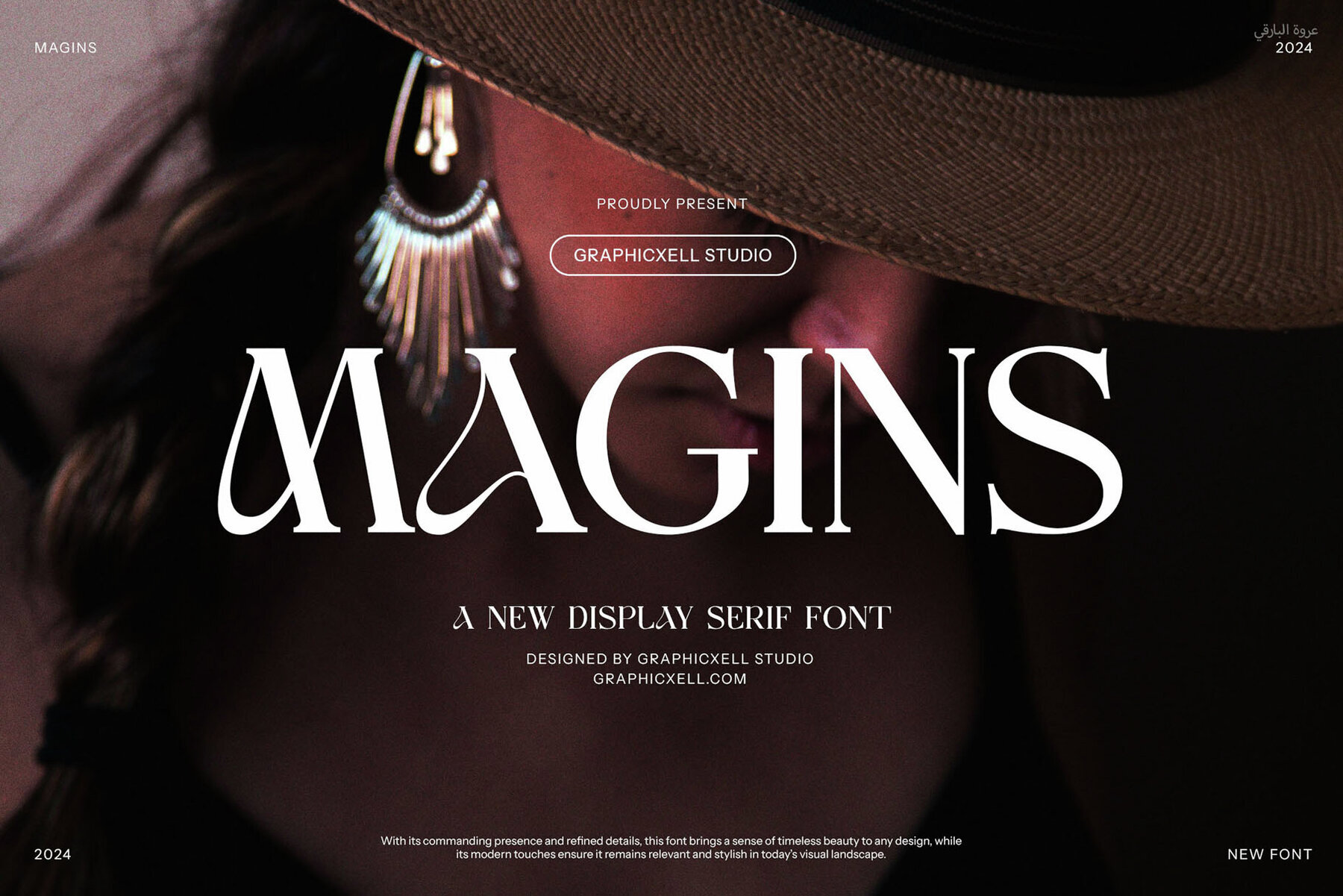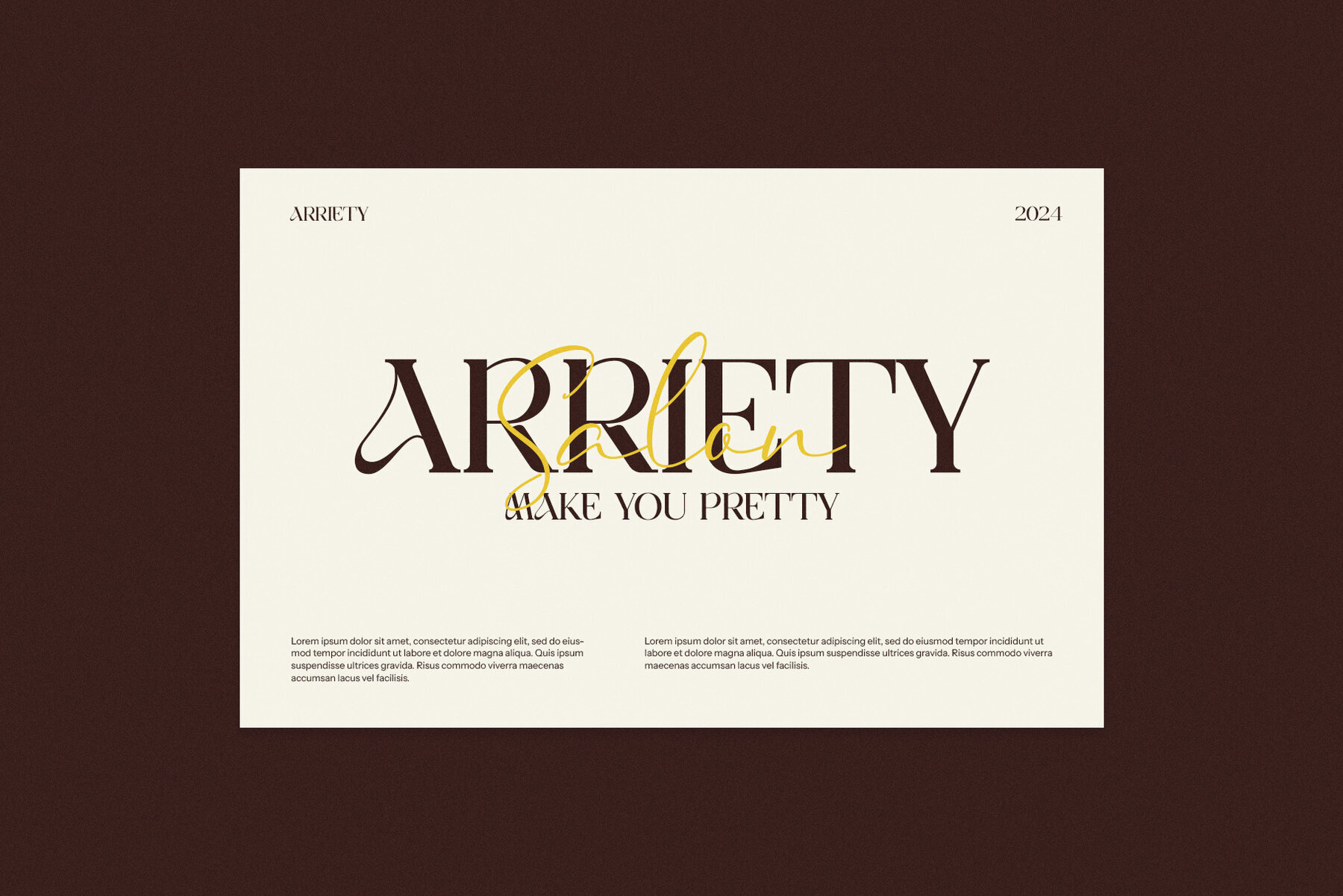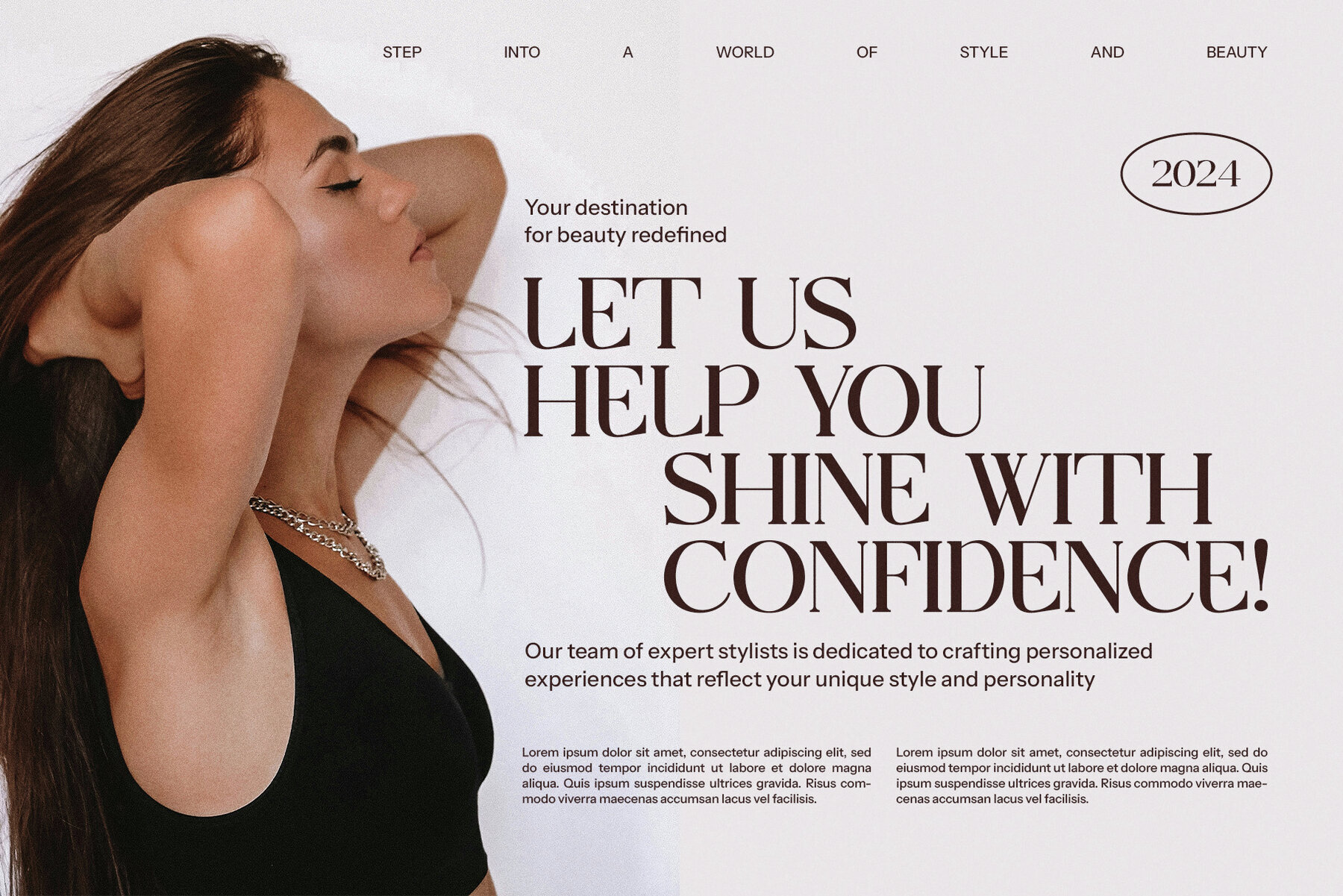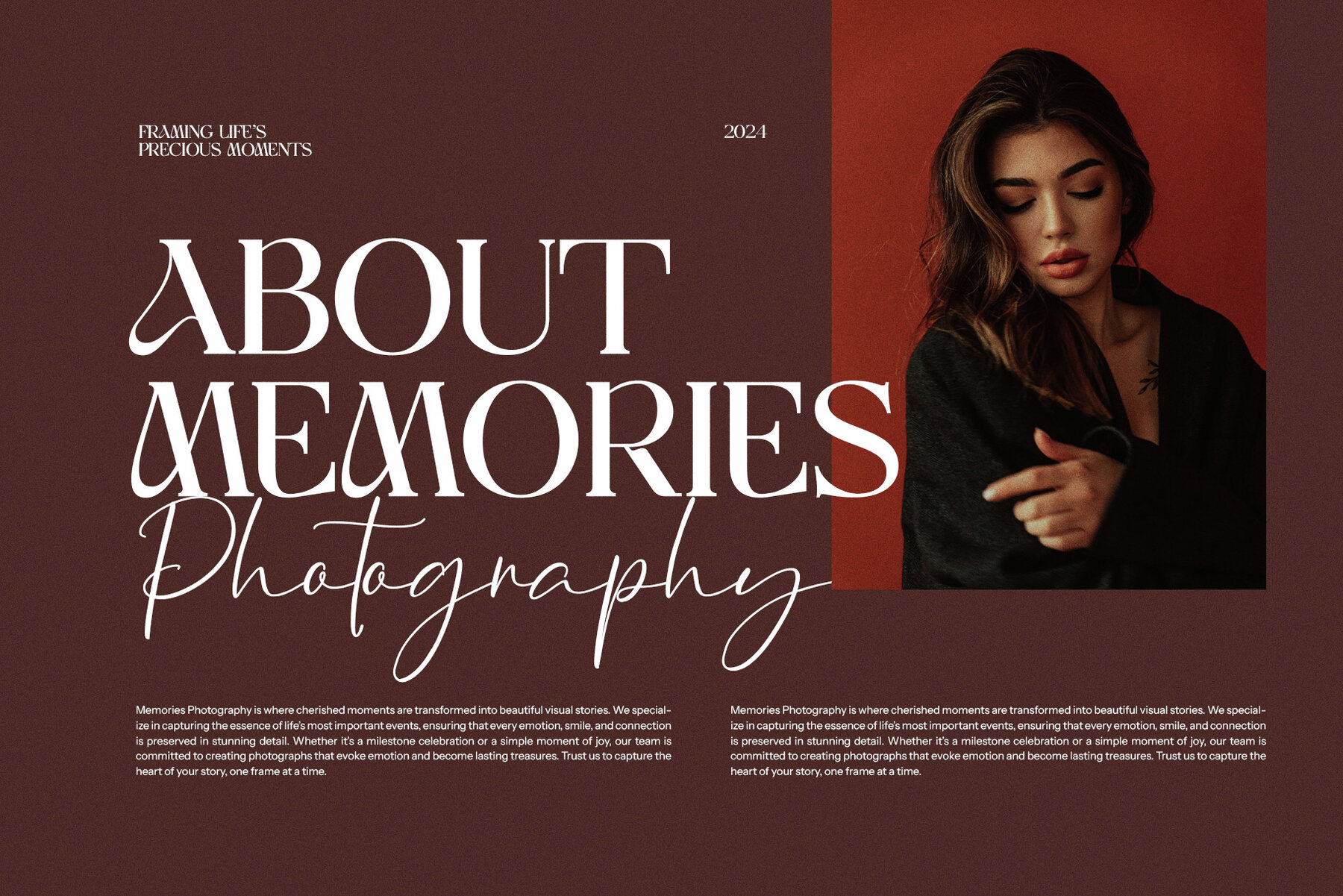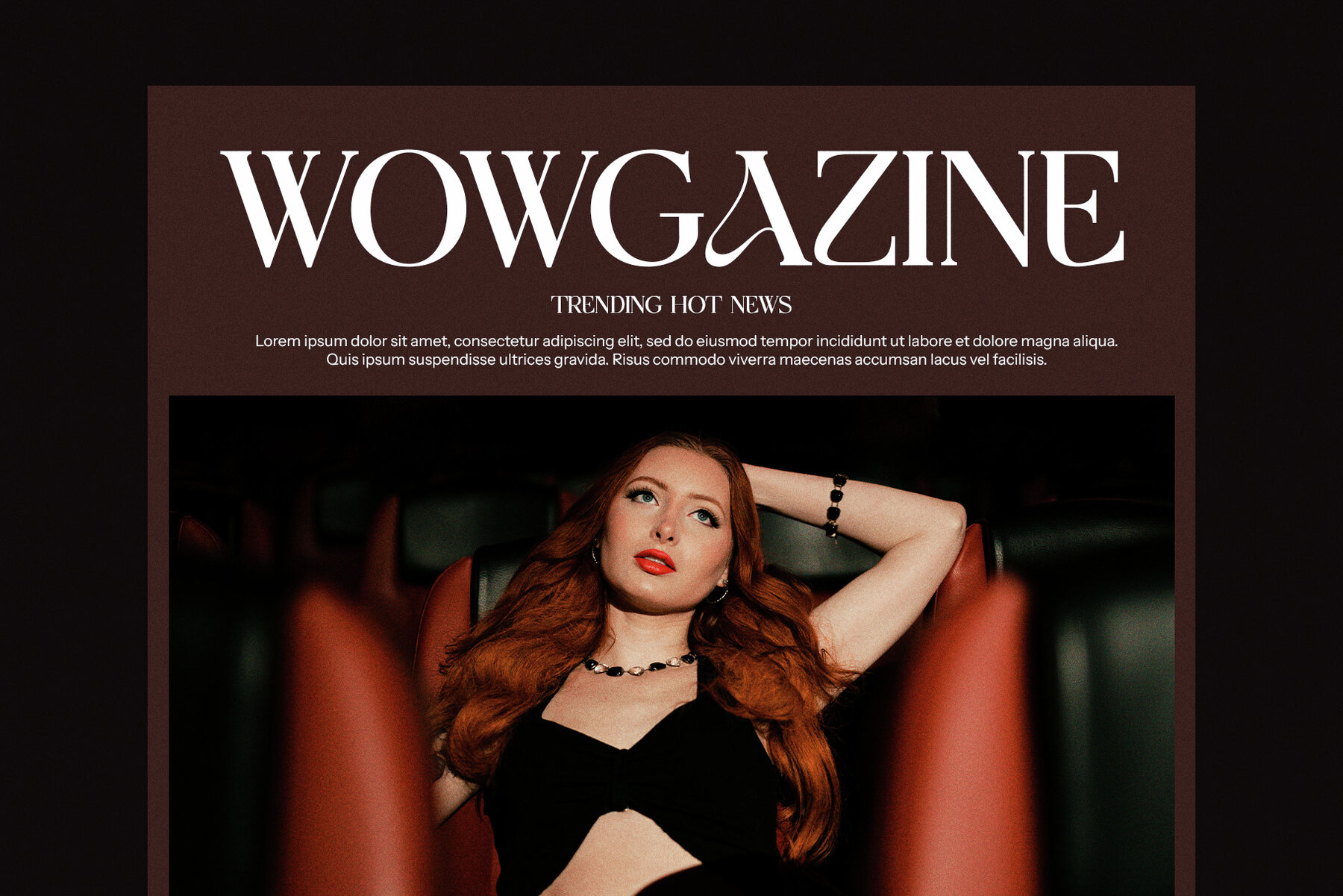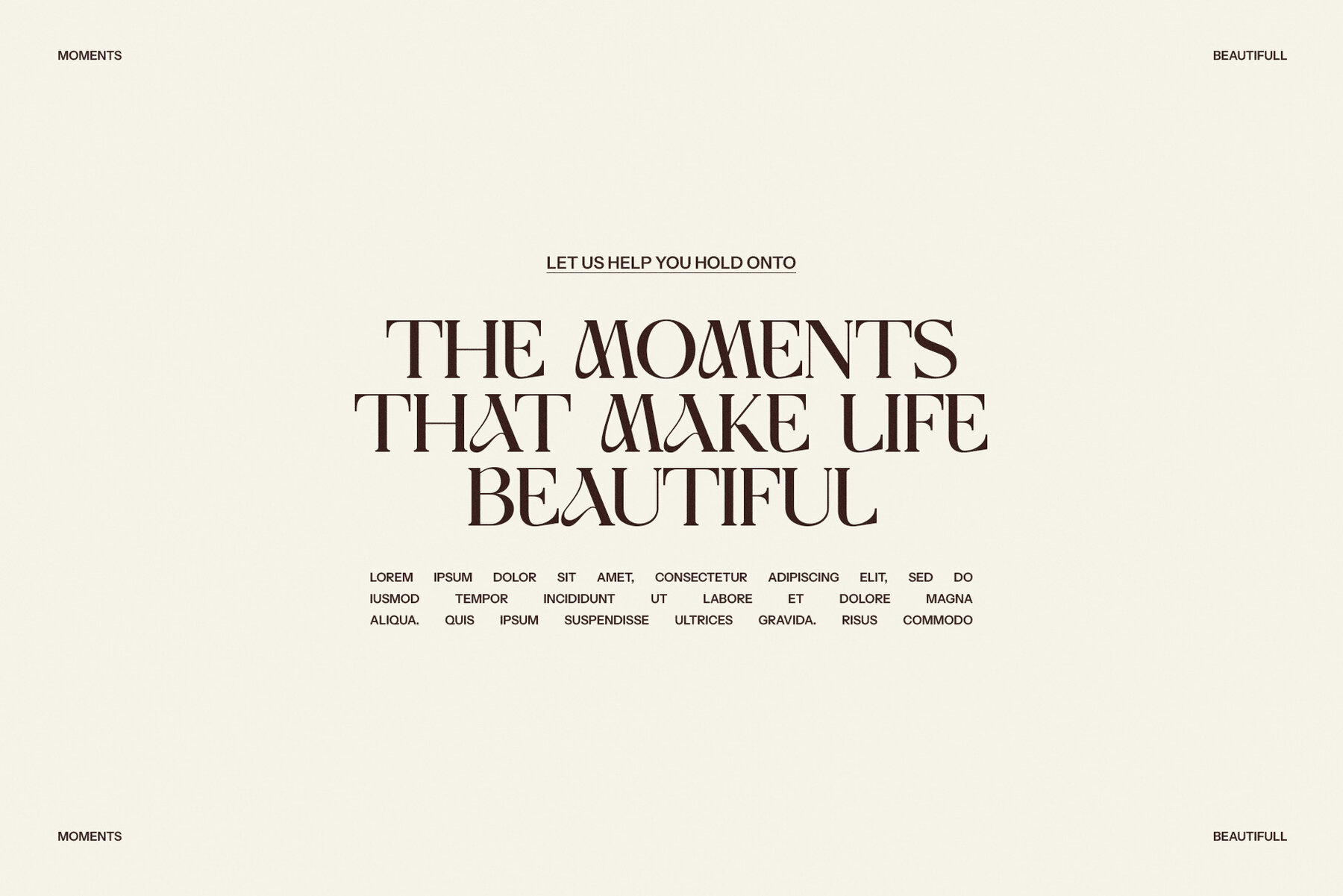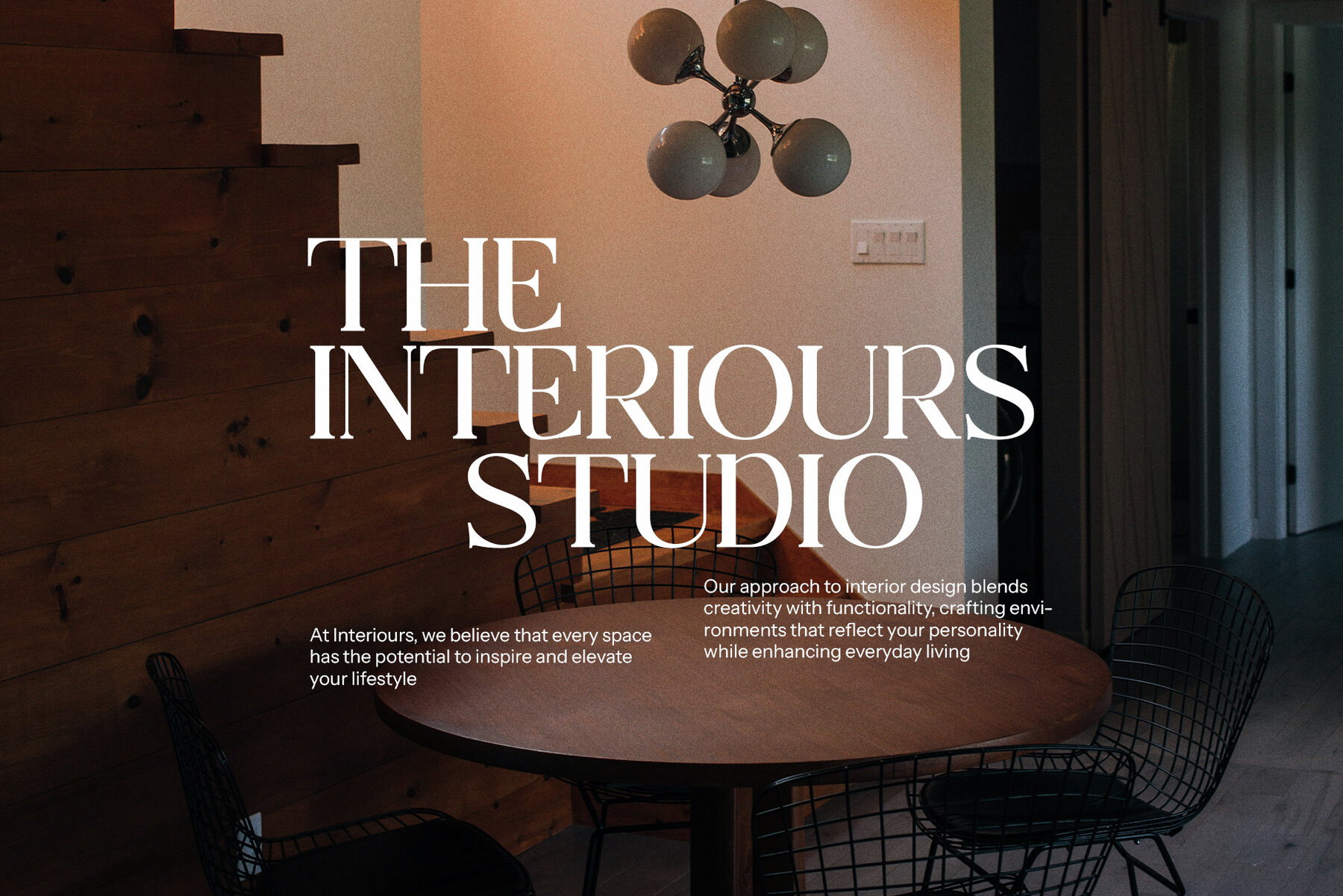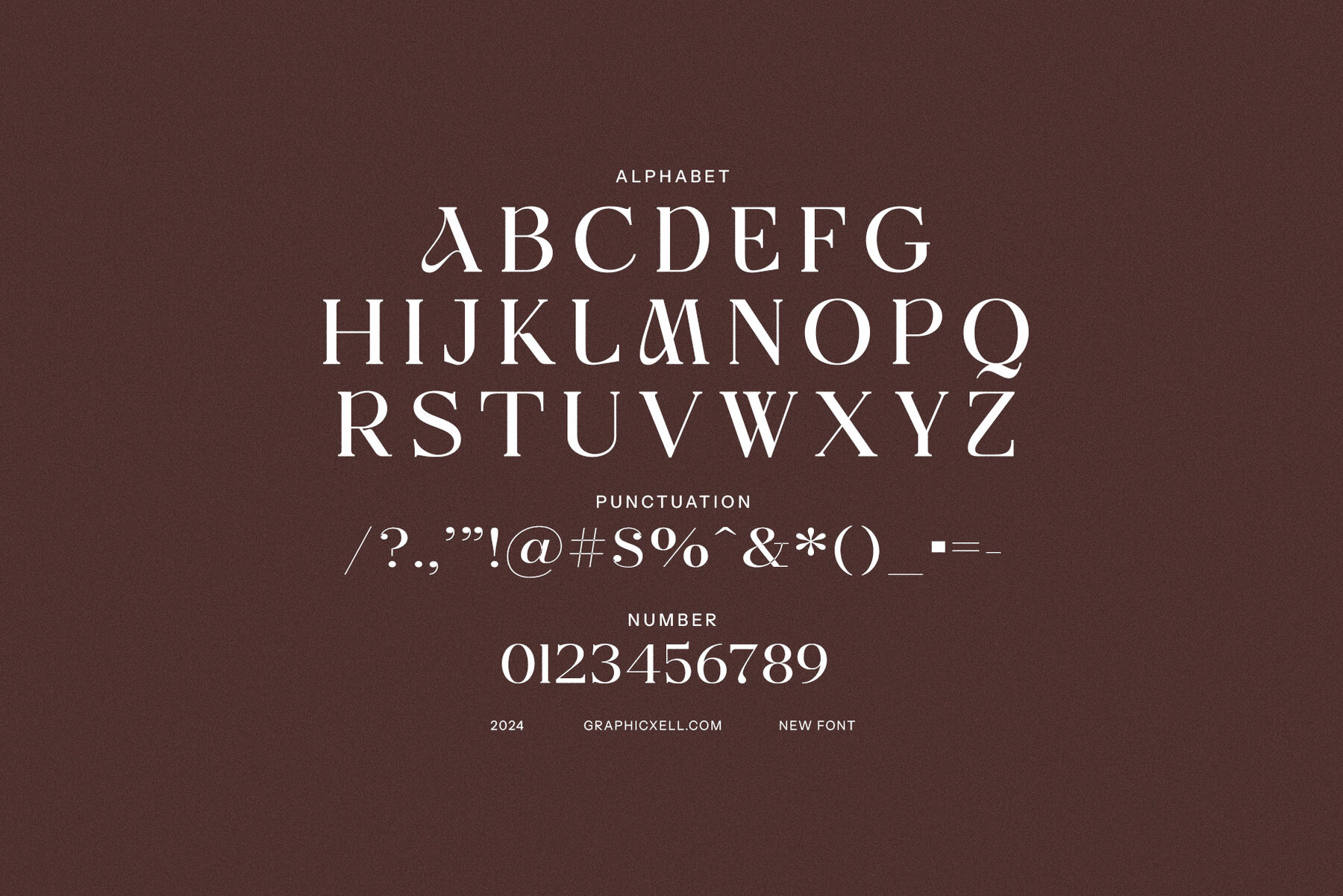
Magins Font
Magins
Magins Vintage Serif Font merges old-world elegance with contemporary flair, making it an outstanding choice for graphic and digital designers. The vintage-inspired serifs exude timeless sophistication, while the unique letterforms introduce a modern edge, allowing this typeface to stand out in any design project. With its carefully crafted shapes, Magins is perfect for creating luxurious brand identities or timeless editorial spreads, as it adds depth and personality to each project. The distinctive character shapes, featuring bold serifs and delicate curves, bring movement and grace to the typography, grounding it in tradition while maintaining a refreshing modernity.
The high contrast between thick and thin strokes in Magins creates a dynamic rhythm, ensuring both visual impact and readability—essential for effective design. This versatile font is suitable for various applications, including logos, branding, invitations, product packaging, and editorial layouts. Its elegance makes it ideal for high-end advertisements and magazine headlines, providing a refined and bold statement. For designers looking to capture classic design essence with a future-oriented twist, Magins offers a sophisticated, vintage-inspired aesthetic that remains both fresh and unforgettable.